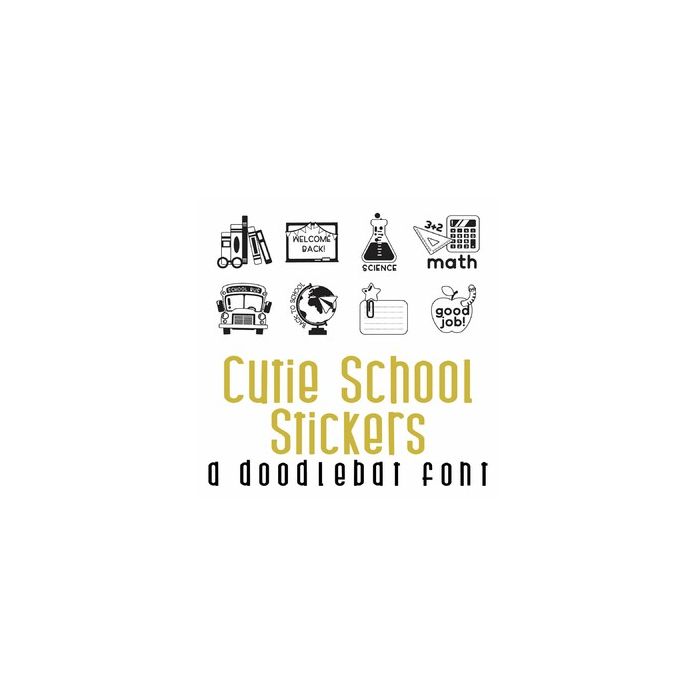
This adorable doodlebat font features 26 fun classroom style stickers. Perfect for classrooms, students, crafts, gifts, cardmaking, scrapbook pages, graduation and more!